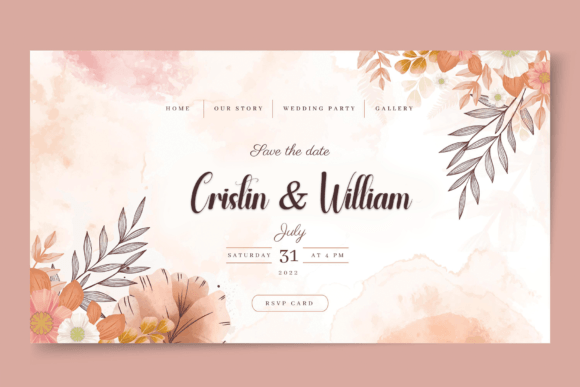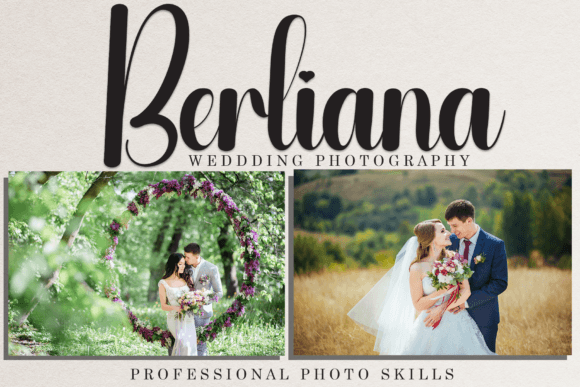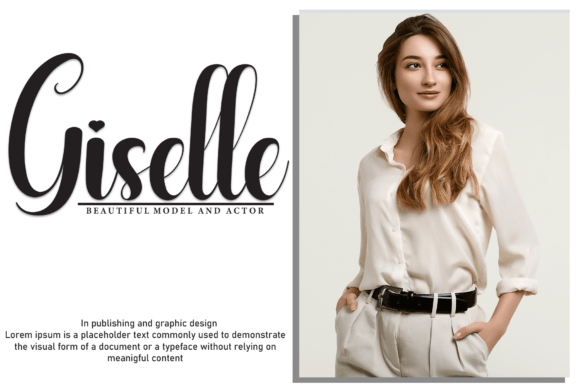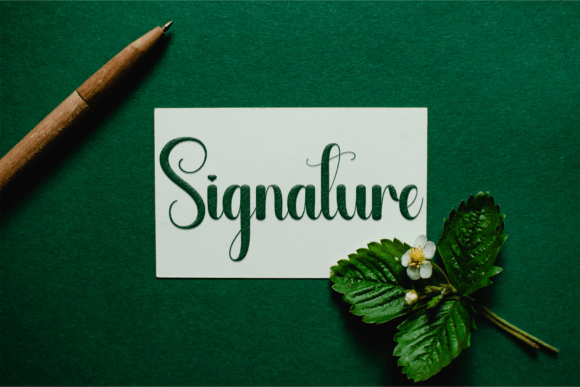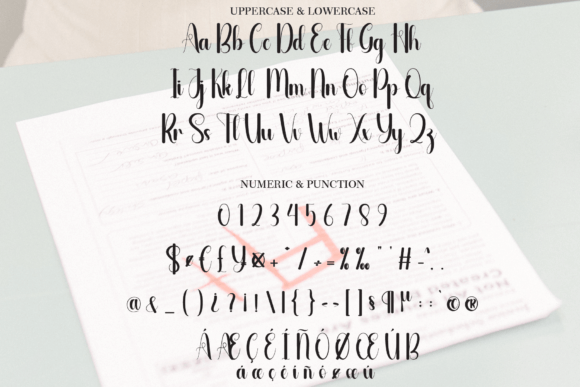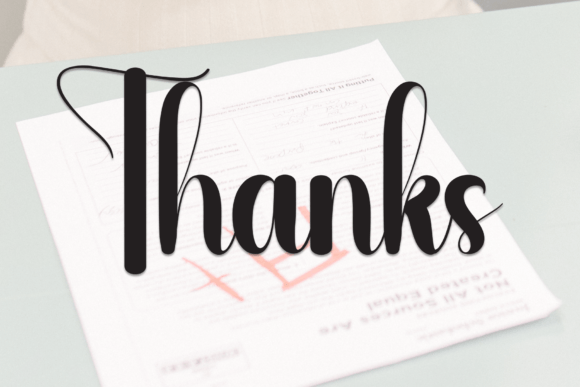
Introducing Grades Font: The Sweet and Friendly Handwritten Font for Your Creative Projects
Are you a designer or crafter looking for a font that can add a personal touch to your work? Look no further than Grades Font, a sweet and friendly handwritten font that’s perfect for a variety of creative projects. In this article, we’ll take a closer look at Grades Font, its features, and how you can use it to elevate your designs.
What is Grades Font?
Grades Font is a beautiful, handwritten font that’s fresh and casual. It’s designed to bring a touch of warmth and personality to your designs, making it ideal for projects that require a more personal and human feel. Whether you’re creating wedding invitations, greeting cards, or any other type of design that needs a lovely touch, Grades Font is the perfect choice.
Features of Grades Font
So, what makes Grades Font so special? Here are some of its key features:
- Sweet and Friendly Design: Grades Font has a sweet and friendly design that’s perfect for creating designs that are approachable and inviting.
- Handwritten Style: The font has a beautiful, handwritten style that’s reminiscent of handwritten notes and letters.
- Fresh and Casual: Grades Font is fresh and casual, making it perfect for designs that need a modern and relaxed feel.
- Easy to Read: The font is easy to read, even at small sizes, making it perfect for body text and other applications where legibility is important.
Uses for Grades Font
So, what can you use Grades Font for? The possibilities are endless, but here are some ideas to get you started:
- Wedding Invitations: Grades Font is perfect for creating beautiful wedding invitations that are personal and unique.
- Greeting Cards: The font is also great for creating greeting cards for special occasions, such as birthdays, holidays, and anniversaries.
- Social Media Graphics: Grades Font can be used to create social media graphics that are friendly and approachable.
- Blog Posts: The font can be used to create blog posts that are personal and engaging.
- Branding: Grades Font can be used to create branding materials, such as logos and business cards, that are unique and memorable.
Tips for Using Grades Font
Here are some tips for using Grades Font in your designs:
- Pair it with Other Fonts: Grades Font can be paired with other fonts to create a unique and interesting design.
- Use it for Headings and Body Text: The font can be used for both headings and body text, making it a versatile choice for designers.
- Experiment with Colors: Grades Font looks great in a variety of colors, so don’t be afraid to experiment and find the perfect color for your design.
In conclusion, Grades Font is a beautiful, handwritten font that’s perfect for designers and crafters who want to add a personal touch to their work. With its sweet and friendly design, fresh and casual style, and ease of use, Grades Font is an excellent choice for a variety of creative projects. Whether you’re creating wedding invitations, greeting cards, or social media graphics, Grades Font is sure to impress.